As a web designer, you have a lot of big decisions to make for each website you build. Color palettes, UI interactions, navigation layout, choosing the best font for your website, and much, much more.
One area of web design that you might not be spending enough time thinking about, however, is font combinations.
Choosing one great-looking font is one thing. Once you have a good sense of the voice and style of the brand, it becomes much easier to identify fonts that convey a similar vibe.
What Are Font Combinations?
Font combinations (also known as font pairings) are two different web fonts that compliment or balance each other.
Font combinations can be cohesive, or they can use contrast to accent the make certain elements of your typographic theme stand out
Why Do You Need Font Combinations?
Websites need more than one font — to establish hierarchy, to keep visitors engaged with lots of text, and to subliminally tell visitors more about the brand’s personality and approach.
When you add this extra layer of complexity to the mix, things can get tricky. Not only are you pairing fonts with each other; you’re pairing them with your web design, too.
I’m sure you’ve encountered scenarios like these in your journeys around the web:
- Two boring fonts make a lengthy blog post very difficult to read and you end up skimming through the headers to see if you can piece the story together that way.
- A fun and unique cursive font introduces visitors to the business, only for a too-small and super-simple body font to contradict that first impression.
- The website claims that the company takes a youthful and innovative approach to business, which is why the retro fonts seem so out of place.
There’s just too much that can go wrong in font pairing if you don’t take the time to understand how fonts fit together.
What to Consider When Pairing Fonts
In our guide to the best fonts for websites, we summarized the key characteristics to look for:
1. Legibility
One of the reasons why serifs are heavily preferred in literature and newspapers is because of legibility. The serifs (feet) at the tops and bottoms of the characters make it easier for readers to distinguish between similar-looking characters like the uppercase “I” and lowercase “l”, so there’s no slowing down due to comprehension issues.
If you’re designing a page with over 600 words, it wouldn’t be a bad idea to use a serif in the body text for this very reason.
That said, if you find a sans serif with distinct letterforms (even without the serifs), don’t be afraid to experiment. We have some examples of how to use sans serifs in both body and header placements below.
2. Readability
One of the reasons why san serifs were long thought to be a better choice than serifs for online text was because of their high readability. However, studies have shown that there’s little difference in how quickly or easily people can read serif vs. san serif texts — at least at smaller sizes.
As screen resolutions have vastly improved over the years, typographers have been able to create font faces in both styles that are equally as readable. As the NNG explains:
“The old usability guideline for online typography was simple: stick to sans-serif typefaces. Because computer screens were too lousy to render serifs properly, attempting serif type at body-text sizes resulted in blurry letter shapes.”
While other font types — like overly decorative ones — may be too difficult to read outside of large header text, designers have a lot of options in terms of how they style the text on a page with serif and san serifs.
What you should be more cognizant of, then, is the sizing and spacing of your characters instead as that does have an effect on readability and legibility.
3. Comfort
There are some web designers who are reluctant to use typefaces like Helvetica or Times New Roman because of how overused they are. However, font selection and pairing aren’t about how you feel about your website’s typography, it’s about how comfortable your visitors are in reading it.
So, there’s no shame in choosing classics if they get the job done.
4. Style
Select font types and fonts with styles that align well with your brand. For example, serif fonts come off feeling more traditional and serious as opposed to cursive fonts which tend to be more quirky and fun.
You can tell visitors a lot about your brand just by choosing the right kinds of fonts to begin with.
Don’t lose sight of these rules as you move onto the next step of designing with typography:
4 Rules for Pairing Fonts in Web Design
Once you have a good sense of which fonts are the best to use, you have to come up with a killer combination.
Here are some rules to live by when pairing fonts:
Rule #1: Use No More Than Three Fonts on Your Site
You’re going to need a font for your header text that looks great in a bigger size and does a good job of grabbing attention. And you’re going to need a font for your body text that’s both legible and readable.
Start by selecting these two and only add another if you absolutely need to. We’ll show you some examples below where that would be the case.
Rule #2: Concord and Contrast Are Good; Conflict Is Bad
Your font pairing must have balance.
First things first, they have to complement one another. This means that, even if they look dissimilar, they present a united front to visitors and readers.
A good way to do this is to pair a serif with a sans serif font, though it’s not the only way to achieve harmony in your typography.
Another thing you can do is use a header or display font with a ton of personality and then balance it out with neutrally designed body text.
Just make sure the styles don’t conflict. A rugged gothic serif font, for instance, wouldn’t work well with an uber-feminine cursive font.
Rule #3: Don’t Be Afraid of Pairing Within Font Superfamilies
There’s nothing wrong with using font pairs that come from the same font family so long as the styles don’t look too similar. They can blend well, but they shouldn’t be hard to distinguish from one another.
You’ll find some neat pairing options within superfamilies that have a couple of dozen different styles (at least) to play with. Thin vs. thick. Condensed vs. extended. Serif vs. sans serif.
It’s also important to consider how different sizes and different weights create contrast between styles within the same family. That may be enough to create an attractive pair of fonts.
Rule #4: Make Sure Your Fonts Are Properly Sized and Shaped for Their Role
One of the reasons why we need font pairs in the first place is to establish a hierarchy on web pages. But increasing your font’s size by 10 pixels isn’t necessarily going to establish hierarchy.
That’s why we need different fonts to play different roles.
For instance, you might want to use a tall, condensed style of a sans serif font to give your header a quick and powerful punch. Your body text could then use a serif with rounder and more spacious characters that give your readers some room to breathe as they soak up the message.
The 30 Best Font Combinations for Web Design
When it came time to put together the best font combinations, we wanted to make sure we had a good mix of pairings and use cases to apply them to. So, you’re not just going to see common sans serif/serif fonts that go well together.
We’ve pulled fonts from a variety of sources — Google Fonts, Adobe Fonts, font repositories like Fonts.com as well as independent font foundries — which gives us (and you) more flexibility in terms of how you mix-and-match them.
Let’s take a closer look:
1. Abril Fatface & Lato
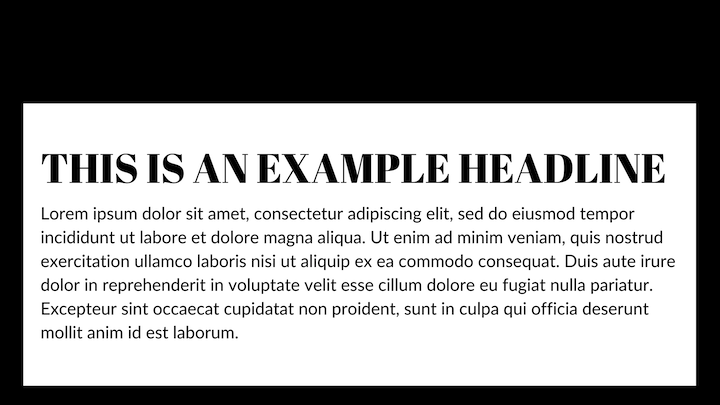
You have a potent combination here of classical and modern advertising typography. Abril Fatface was designed to resemble advertising headlines from the U.K. and France in the 1800s. Lato was more recently designed to be a proprietary font for a corporation.
Put the two together and you have a sharp combination of fonts that would look great on marketing and digital agency websites.
Get the fonts:
2. Alegreya Sans Black & Alegreya
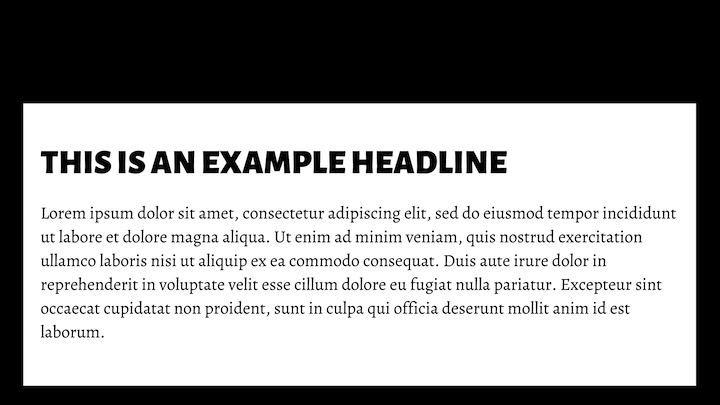
This is the first of our font superfamily examples. You wouldn’t necessarily know it by looking at this example either.
Originally designed for literature, the combination of Alegreya Sans Black and Alegreya is a great choice for blogs — for personal and professional purposes. The bold headline isn’t too overpowering and plays well against the carefully designed serif body.
Get the fonts:
3. Aqua Grotesque & Roboto Slab Thin
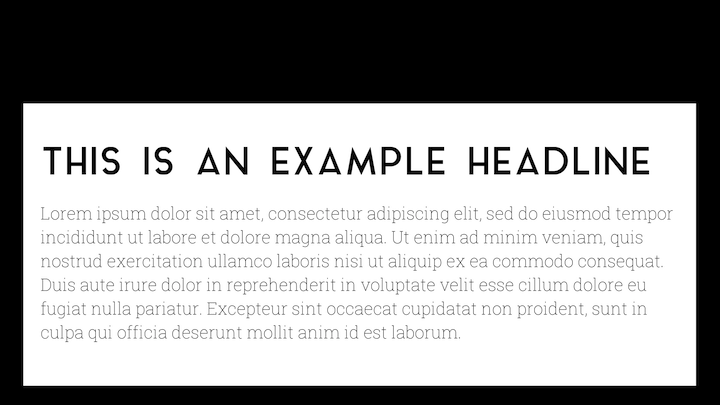
The pairing of Aqua Grotesque and Roboto Slab Thin is a good choice for websites or brands focused on taking customers in the future. Software companies, for sure, would be a great choice for this futuristic pairing. Companies that build machinery or vehicles, work on energy initiatives and so on would also benefit from this pairing.
Because of the lightness of the body text, this would be best used on a homepage or internal pages with short sections of text.
Get the fonts:
4. Archivo Black & Roboto
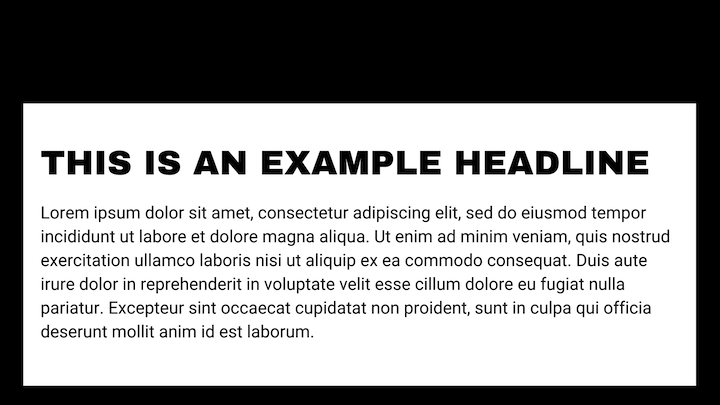
Here we have a pairing of two sans serif fonts. Archivo Black is a grotesque sans serif, which makes it feel slightly imperfect compared to the neo-grotesque and geometric styling of Roboto.
This is a great example of how to use fonts in concord with one another. Yes, they’re two sans serifs, but the imperfect/perfect pairing of their character sets creates a good balance. This would work really well in giving an ecommerce site a youthful and trustworthy vibe.
Get the fonts:
5. Bebas Neue & Old Standard TT
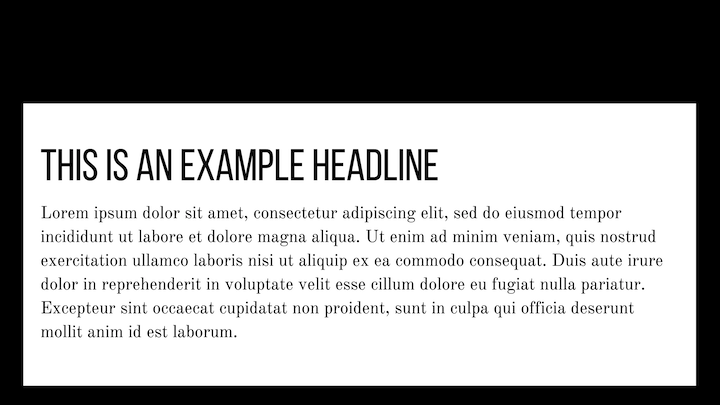
Bebas Neue is a beautifully designed display font with a condensed, all-caps character set. Because of its narrower letters, you can size it much larger than wider fonts and create a more impactful headline as it stands over the old-world style of Old Standard TT.
This would look good on a reviews site — for movies, books, Broadway plays, etc.
Get the fonts:
6. Cooper Hewitt Heavy & Cooper Hewitt Thin
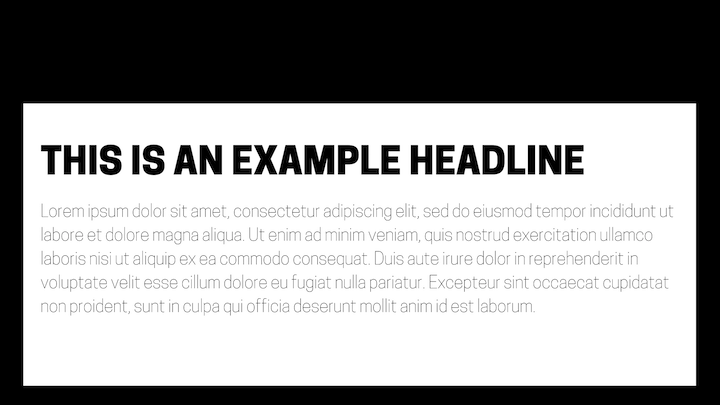
When Cooper Hewitt, the Smithsonian Design Museum, decided to reinvent its branding for the twenty-first century, this font was just one part of its rebirth. Although it’s not a superfamily of fonts, there’s enough versatility in its styles that you can pair different weights together for a striking contrast.
This artistic font would look great splashed against the walls of websites for designers, photographers, and other creators. Since images do much of the talking for you anyway, the lighter body text won’t be a problem since there won’t be a whole lot of text to apply it to.
Get the fonts:
7. Exo 2 & Alegreya Sans
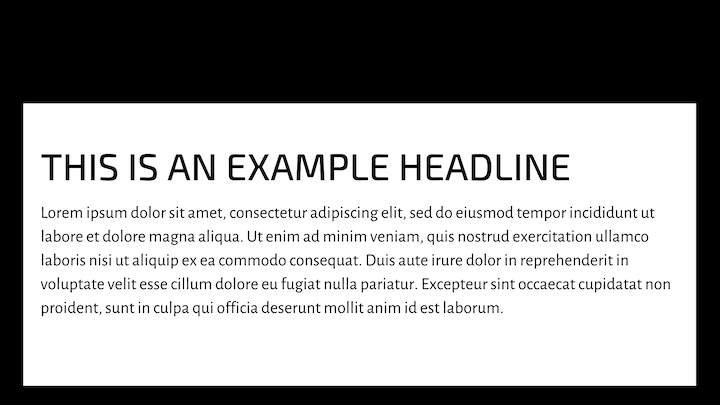
This is an eye-catching pair. At first glance, it’s the Exo 2’s futuristic-looking header that catches our attention. Upon further expectation, we also notice that Alegreya’s humanist sans serif doesn’t feel as neutral or plain as, say, a geometric sans serif would.
This pairing works really well on blogs for companies in tech, defense, and aerospace — where reading is important, but you still want to preserve the unique tone of the subject matter.
Get the fonts:
8. Fira Sans Black & PT Serif
Both Fira Sans and PT Serif are designed for great readability and legibility.
While we could realistically use this duo anywhere on any website or blog with a large readership, the tone feels similar to the one we get from newspaper covers screaming out the top headlines of the day. As such, this pair would serve you well on news sites — especially in the sports or entertainment arena.
Get the fonts:
9. Josefin Sans Bold & Josefin Slab Semi-Bold
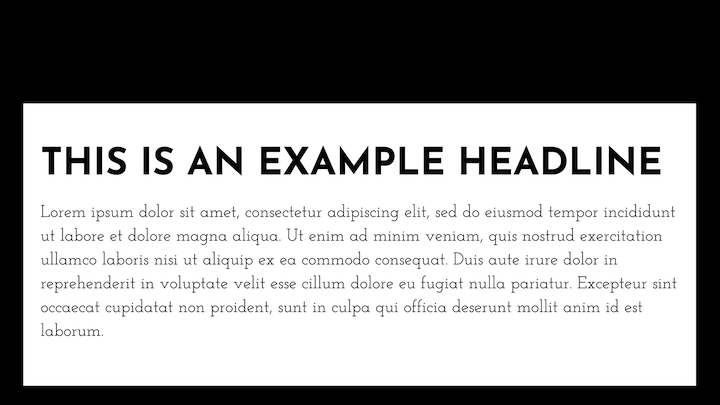
Josefin Sans and Josefin (Slab) are Google fonts. Although they’re not a superfamily, they are sister families that pair nicely together.
As for usage, these vintage fonts were designed to be used as larger fonts, so they belong on the homepage of your site. And because they’re styled after the 1920s (Sans) and 1930s (Slab) geometric typefaces, you’d do well to place them on websites with similar retro leanings. Like restaurants, bars, barbershops, etc.
Get the fonts:
10. Karla Bold & Spectral Light
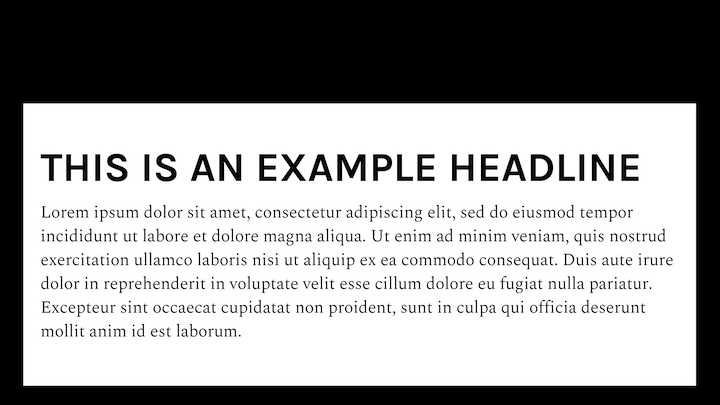
Karla and Spectral both have their quirks (Karla’s kerning is slightly off and Spectral’s curves aren’t as pronounced as other serifs), which makes them a lovable pair.
This duo would appeal well to younger consumers. It feels honest, friendly, and relatable — something that Millennials and Gen Zers crave from brands. So, if you’re building a website or blog targeted at a younger base of consumers, this is a good pair to use.
Get the fonts:
11. Lato & Merriweather
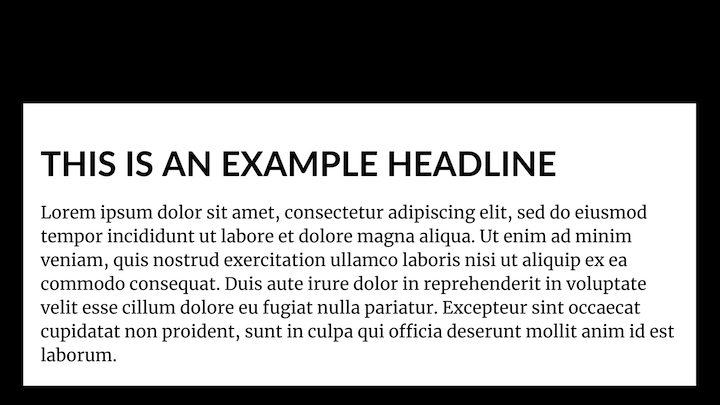
Both Lato and Merriweather have a strong and sturdy appearance, which makes them extremely readable. Not only that, but they feel more welcoming — as if the page is a journey worth undertaking and not just a reading chore that one needs to slog through.
Since neither of these fonts really has a “bookish” quality, feel free to use this pairing on startup and small business websites. They’ll make a strong positive first impression with prospects.
Get the fonts:
12. Lato & Roboto
Here we see Lato paired with Roboto. This pair gives off a sharp and professional look.
The differences between the pairing of Lato with Merriweather and Lato with Roboto are subtle enough. However, the smaller, more controlled feel of Roboto makes this pairing a better choice for larger corporate sites in fields like pharma, biotech, or healthcare where technology and science play an important role in building trust with customers.
Get the fonts:
13. League Gothic & PT Serif
There’s a great contrast between these fonts. League Gothic stands tall over the well-proportioned and rounded PT Serif. The pair make the text feel serious without being totally off-putting.
This combo would work well on websites for fintech or financial services. The design is smart and doesn’t feel wasteful.
Get the fonts:
14. League Spartan & Libre Baskerville
When we think of Sparta, we think of power, strength, intelligence, and loyalty — which is similar to the vibes we get from the League Spartan font. It’s a strong font with sharp edges and it takes up a lot of room. When combined with Libre Baskerville’s rounded characters, there’s no denying what the tone is here.
Use this potent duo when designing websites for entrepreneurs, speakers, consultants, and anyone else whose thoughts and voices need to be heard.
Get the fonts:
15. Libre Baskerville & Source Sans Pro
Here’s what happens when you give Baskerville the front seat. It changes the vibe altogether, especially considering the serif is in the lead position (usually, we see it the other way around).
When you turn the formula on its head like this — especially when using modern styles from the twentieth century — it sends the message that “We respect what’s come before us, but we’re not afraid to challenge the norms.” As such, this font pair would look really cool on websites owned by underrepresented entrepreneurs (e.g. women, persons of color, etc.).
Get the fonts:
16. Libre Franklin & Libre Baskerville
This is a fun combination to play with. Both Libres are based on classic typefaces from literature. However, Franklin as the header really changes the whole vibe of the site. And because Franklin comes in 18 different styles, from light to bold, you can play around with how direct you want your header text to feel.
This pair works well for blogs where there’s a ton of content to read but you want it to feel fun and friendly: personal blogs, travel blogs, food blogs, etc.
Get the fonts:
17. Lobster & Roboto Condensed
Lobster is the only cursive font we included in this font pairing list. While you can use cursive fonts to style text on the homepage, they’re not always easy to read in smaller header tags.
Lobster is a good exception to the rule as it feels more like a font with extra flavor rather than a handwriting font. When paired with the more neutral vibes of Roboto, you could use these fonts to inject some fun into a hospitality or travel website.
Get the fonts:
18. Lora & Merriweather
This duo uses two very popular serif fonts, each bringing a unique style to the table. Lora has brush-like strokes that give the header a warm and creative vibe while Merriweather feels more stable and predictable.
This would be a nice combination to use on websites for creators, like web designers, developers, copywriters, marketers, and so on. And, more specifically, for creator websites that contain lengthy blogs, portfolio pages, and sales funnels.
Get the fonts:
19. Merriweather Sans Bold & Merriweather
Merriweather was designed to improve readability on screens. Not only that, the sans serif and serif versions of the font were designed to harmonize with one another.
Because of the beautifully compatible construction of this pair, you could really use it anywhere. However, because these fonts work well on screens — even at smaller sizes — try using them on ecommerce sites. Your mobile shoppers will appreciate the excellent readability of your product pages.
Get the fonts:
20. Montserrat & Droid Serif
Here’s a great example of using fonts exactly where they were meant to be. Montserrat’s design comes from Brazilian signage while Droid Serif was designed for comfortable reading experiences on Android devices.
You can use this font pair for news and entertainment sites with heavy mobile readership (i.e. younger readers). Montserrat will call their attention to the headlines while the readable body text will keep them engaged with the content, even as they have to keep scrolling.
Get the fonts:
21. Neue Helvetica & EB Garamond Medium
Neue Helvetica has a ton of flexibility in terms of what you do with it (it has over 120 typeface styles). This digitized reimagining of the old Helvetica does well when paired with something classical like EB Garamond.
The example above shows how this pair might be useful for, say, a gossip magazine that needs its headlines to instantly grab visitors. But you could also use this pairing (with other, tamer variations of Neue Helvetica) on websites for service-based companies where modern solutions meet old school business values.
Get the fonts:
22. Nexa Bold & Crimson Pro
With Nexa’s clean and simple design and Crimson Pro’s buttoned-up and studious look, you’ll want to use these fonts to introduce readers to intellectual endeavors. Podcast episodes. Proprietary research reports. Blogs with infographics or other graphics-heavy content.
This duo’s subdued tone allows your eye-opening visual or audio content to make a bigger splash with your audience.
Get the fonts:
23. Noir Pro & Playfair Display
Playfair Display is, as its name suggests, a display font, so it’s meant to be presented in bigger sizes. As such, you’d want to use the Noir/Playfair Display duo for headlines and subheadlines (on the home page, at the top of blog posts, etc.). This pairing is a great way to add some drama to your page without making the whole thing feel over the top.
Obviously, you’ll need a third font to use for your body text. In this case, a popular serif like Times New Roman or Georgia would balance these two out nicely.
Get the fonts:
24. Open Sans & Source Sans
Both Open Sans and Source Sans Pro have a neutral yet friendly appearance, which is really useful if you have a website targeting global consumers. You won’t have to worry about time or location-specific style appealing to only a segment of your audience.
What’s more, both fonts come with extended character sets, so they work really well on multilingual websites translated into Latin, Cyrillic, and Greek alphabets.
Get the fonts:
25. Oswald & Montserrat Extra Light
There’s a showman-type feel with these two fonts paired together. You have the tall and trim Oswald header looming over the lighter Montserrat text below it. It feels like someone stepping onto a stage to make an announcement while a hush comes over the crowd below.
This font pairing works really well on websites that promote events, conferences, webinars, and so on. Just make sure you use Montserrat Extra Light for smaller segments of text (like subheadlines or short paragraphs) so it doesn’t become a challenge to read.
Get the fonts:
26. Oswald & Old Standard TT
In this pairing, we have Oswald coupled up with Old Standard TT. Oswald still takes on a dominant role, though in this case, it feels more authoritative than demanding. And it needs to be with Old Standard’s small textbook-style font.
This duo would work well on websites for healthcare companies as well as educational institutions that need to be seen as well-respected authorities in their space.
Get the fonts:
27. Playfair Display & Raleway Thin
The combination of Playfair Display and Raleway display fonts would be useful for designing eye-catching homepage hero images or introductory banners on the tops of internal or category pages.
Because both of these fonts have a delicate yet strong feel (at least, Raleway does in its “Thin” style), you could use the above combination to design fashion websites or those for local retailers.
Get the fonts:
28. PT Sans & PT Serif
PT Sans and PT Serif are one of those sister fonts that were meant to be paired together.
There isn’t a whole lot of character to these fonts. They’re clean, simple, and uniform in design, which makes them versatile in use. However, because of their toned-down vibe, they’d do really well with websites that have big flashy images that do most of the work to sell its products. Like sites for cars, robotics, smart devices, etc.
Get the fonts:
29. Raleway & Merriweather
We’ve seen these fonts before on this list — and your visitors likely have seen them on the web, too. There’s a good reason for that. They’re both big, bold, and beautifully designed.
When you pair these two popular and familiar fonts together, you get something that feels very honest, very user-first. This pairing would be a great choice for websites for professional service providers like lawyers, agents, writers, consultants, and so on.
Get the fonts:
30. Source Sans Pro & Times New Roman
Times New Roman is often dismissed because of how overused it is. But when used alongside a Source Sans Pro header, it strikes a good balance.
Source Sans Pro is basic enough in design that it doesn’t feel too overwhelming or techy. And Times New Roman is familiar enough that it automatically conveys a sense of honesty and reliability. If you’re building a website that sells tech or digital products, this font pair would work nicely.
Get the fonts:
Pair Fonts Easily With Elementor’s Extensive Font Library
Font pairings are a lot like human relationships: Some are meant to be while others just do not work well.
That doesn’t mean you have to be scared when it comes time to mix-and-match fonts. It just means being mindful of how much friction exists within your font pairing as well as how much friction they can cause a site.
As we’ve seen in the font pairing guide above, what you want to look for are fonts that balance each other out, establish a sense of hierarchy and present a united front in terms of tone. And, of course, don’t forget about selecting the right fonts in the first place.